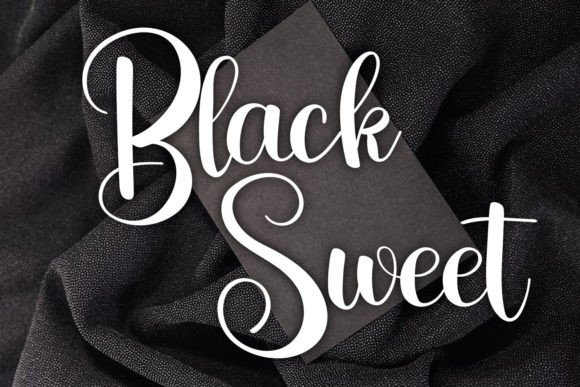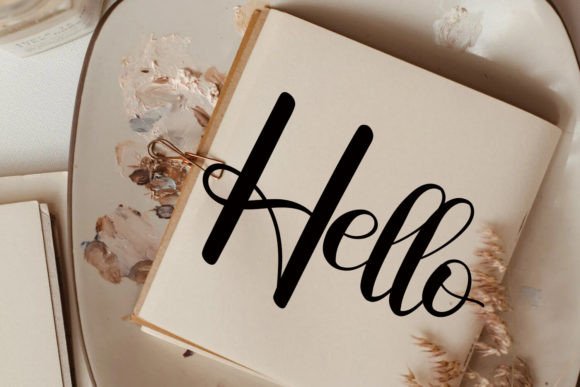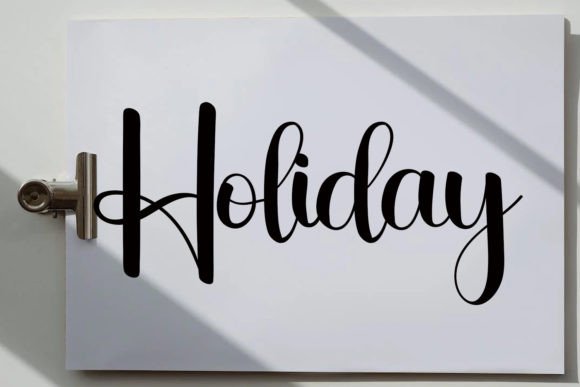
Introducing Everyday Font: Elevate Your Designs with a Fresh and Beautiful Typeface
Are you tired of using the same old fonts for your design projects? Look no further! Everyday Font is here to revolutionize the way you approach typography. This stunning font is perfect for designers, crafters, and businesses looking to add a touch of elegance and sophistication to their visual materials. In this article, we’ll dive into the world of Everyday Font, exploring its features, benefits, and uses.
A Fresh and Beautiful Font for Your Designs
Everyday Font is a meticulously crafted typeface that exudes simplicity, uniqueness, and beauty. Its clean lines, elegant curves, and balanced proportions make it an ideal choice for a wide range of design applications. Whether you’re creating YouTube banners, cover logo mockups, wedding invitations, ID cards, flyers, or crafts, this font is sure to impress.
Why Choose Everyday Font?
So, what sets Everyday Font apart from other fonts on the market? Here are just a few reasons why designers and crafters love this font:
- Versatility: Everyday Font is incredibly versatile, making it suitable for various design projects, from digital to print.
- Simplicity: The font’s simple yet elegant design ensures that your message is conveyed clearly and effectively.
- Uniqueness: With its distinctive style, Everyday Font helps you stand out from the crowd and establish a strong brand identity.
- Ease of use: This font is easy to read and works well in both large and small sizes, making it perfect for a variety of applications.
Design Ideas with Everyday Font
The possibilities are endless when working with Everyday Font! Here are some inspiring design ideas to get you started:
- YouTube banners: Create stunning channel art with Everyday Font and make a lasting impression on your audience.
- Wedding invitations: Add a touch of elegance and sophistication to your wedding stationery with this beautiful font.
- ID cards: Design professional and stylish ID cards that make a great first impression.
- Crafts: Use Everyday Font to add a personal touch to your handmade crafts, such as journals, cards, and scrapbook pages.
Everyday Font is a game-changer for designers, crafters, and businesses looking to elevate their visual identity. With its fresh and beautiful design, versatility, and ease of use, this font is sure to become a staple in your design toolkit. So why wait? Download Everyday Font today and take your designs to new heights!